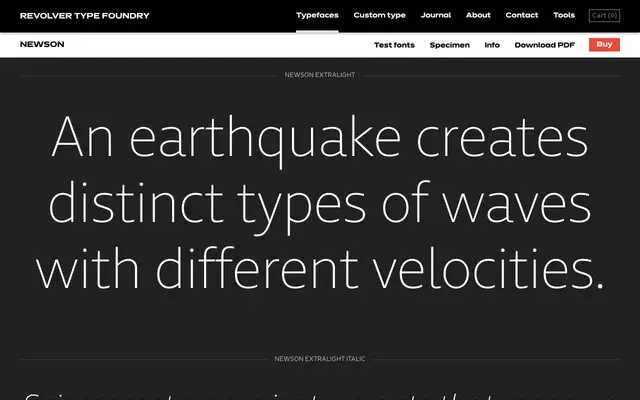
A seven-weight sans-serif family from Revolver Type Foundry, spanning Extralight to Black with matching italics throughout.
Fourteen styles cover seven weights from Extralight to Black, each paired with an italic, giving the family good range for both text and display settings. The even construction and neutral character suggest a workhorse designed for editorial, branding or UI work where consistency across weights matters. No condensed or monospaced variants are offered.
The even stroke widths, clean letterforms and wide range of weights from Extralight to Black suggest a geometric or neutral sans-serif construction typical of contemporary text and display families.